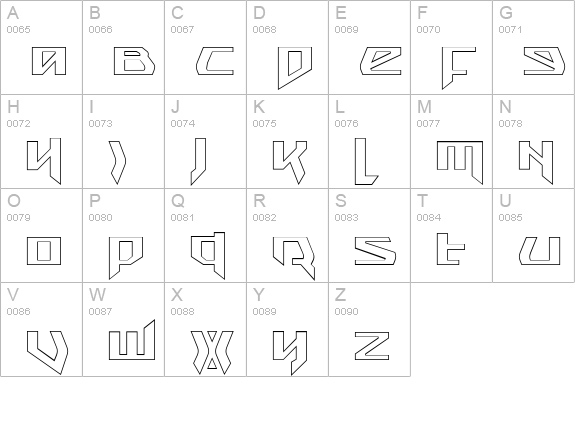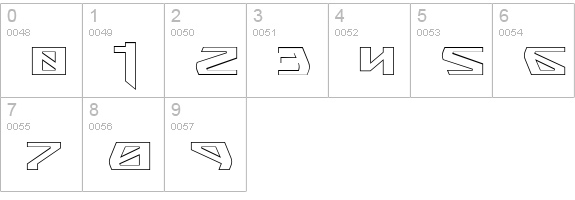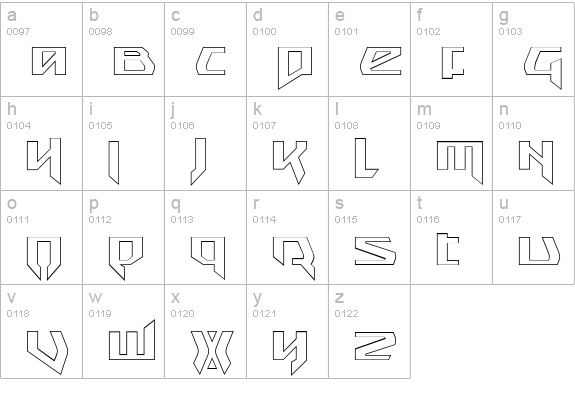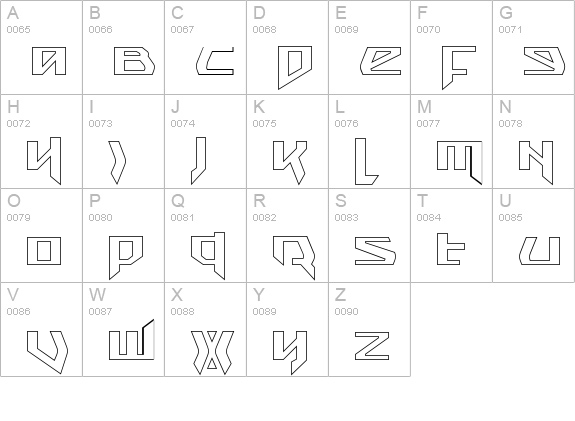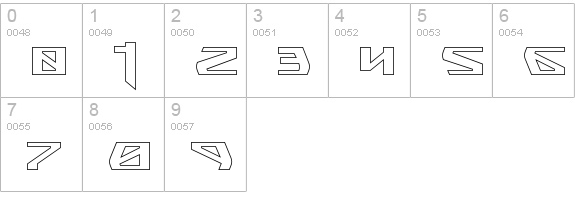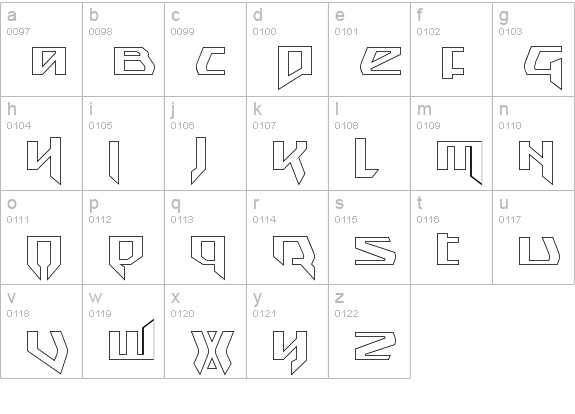
Snubfighter Outline is a striking display font that exudes modernity and sophistication. Its sleek and streamlined design makes it perfect for adding a touch of contemporary flair to any project. The clean lines and geometric shapes of this font give it a unique edge that is sure to capture attention. What's even better is that Snubfighter Outline is available for free download at FontsMarket.com. This means you can easily access this stylish font and use it in your designs without having to worry about any extra costs. Whether you're looking to create eye-catching posters, trendy logos, or sleek branding materials, Snubfighter Outline has got you covered. Elevate your designs with this versatile and stylish font today!